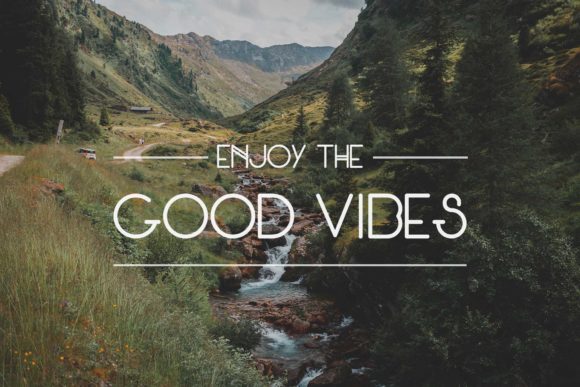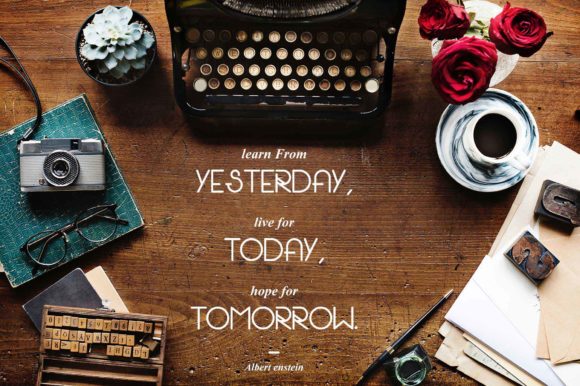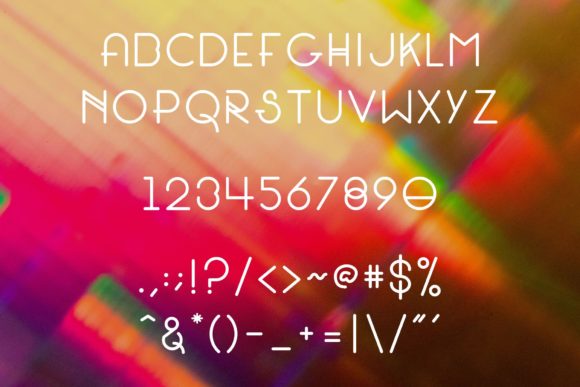
Introduction to Roundy Uppercases Font
The Roundy Uppercases is a all uppercase sans serif font.
It has a glamorous look and is perfect for adding a classy look to your designs .